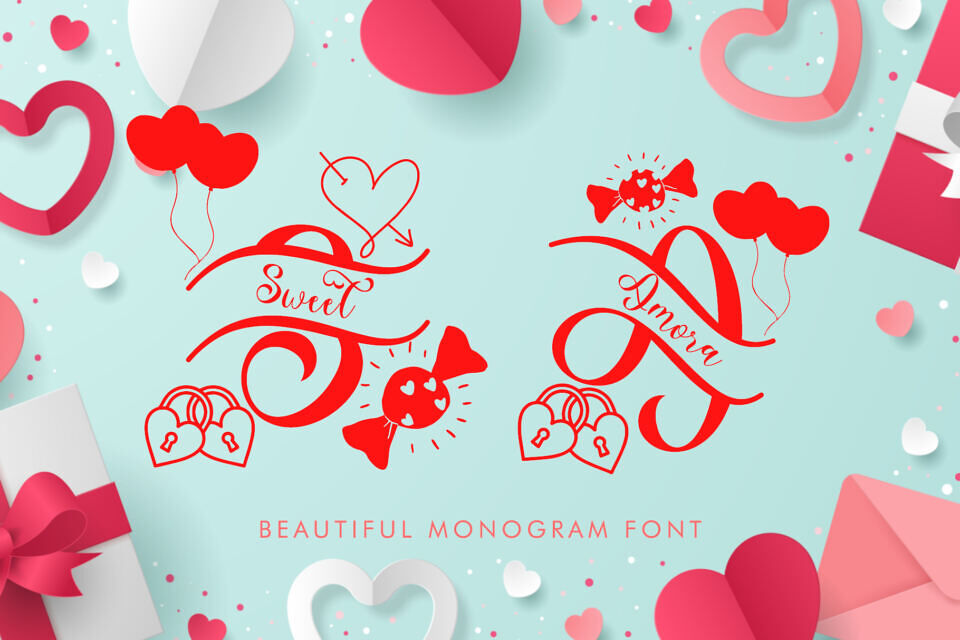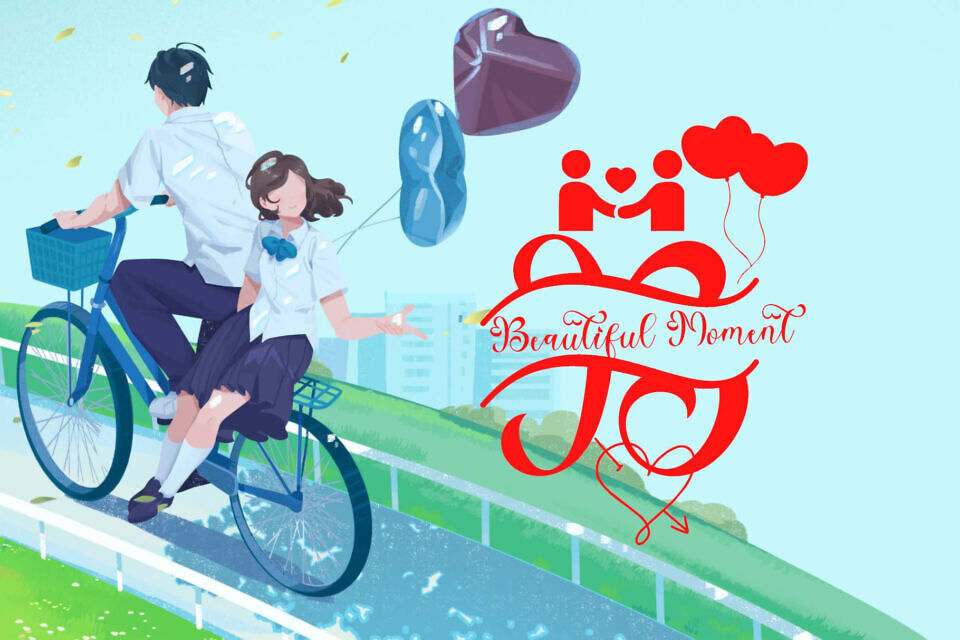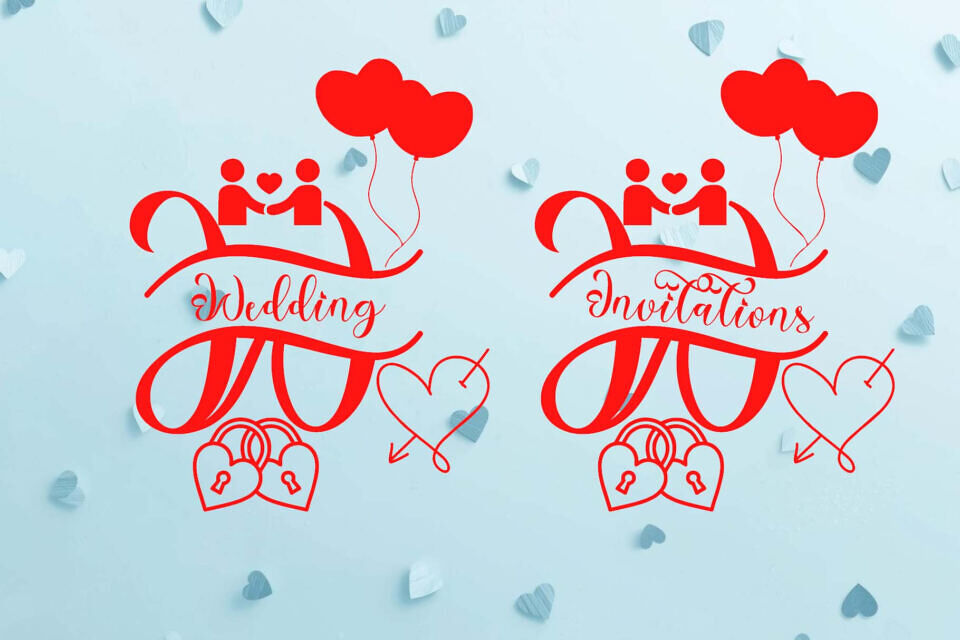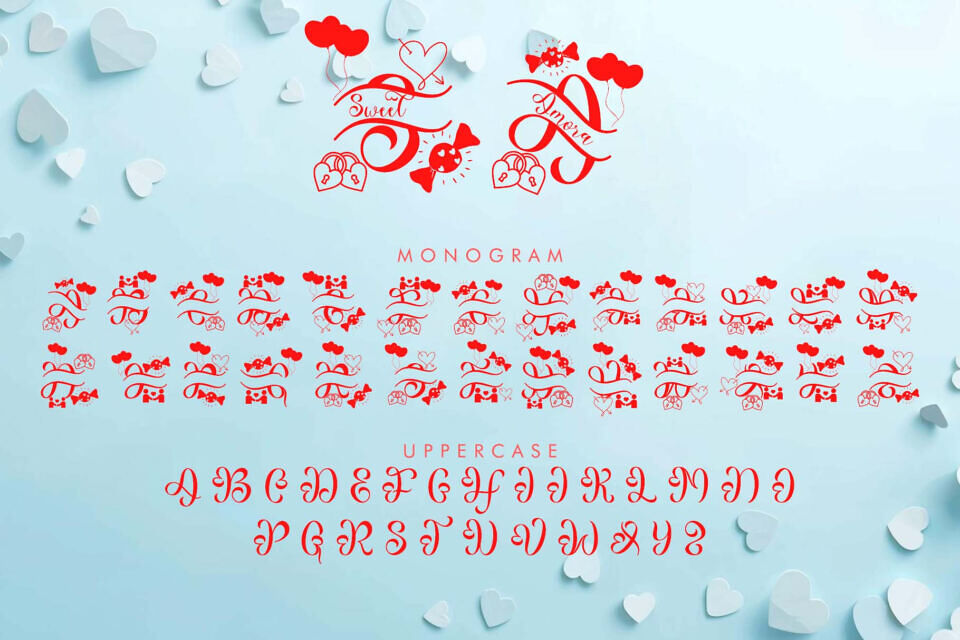
This Sweet Amora Monogram typeface is specifically engineered for creating stunning initials and personalized emblems for weddings, boutiques, and luxury gift packaging
The Sweet Amora Monogram font features elegant, sweeping swashes and integrated heart motifs that frame your text beautifully. It is an ideal Sweet Amora Monogram font for high-end stationery, bridal shower invitations, and custom jewelry engraving.